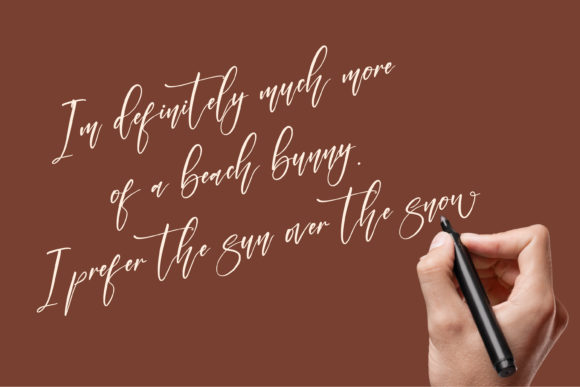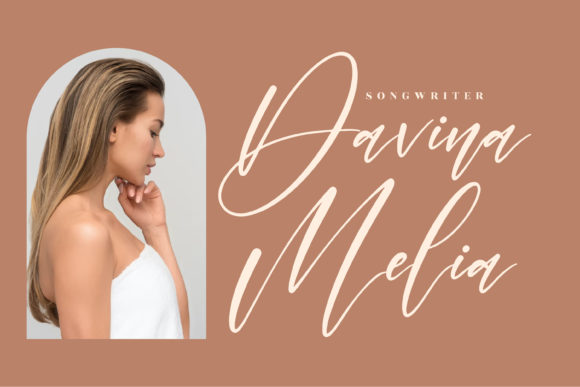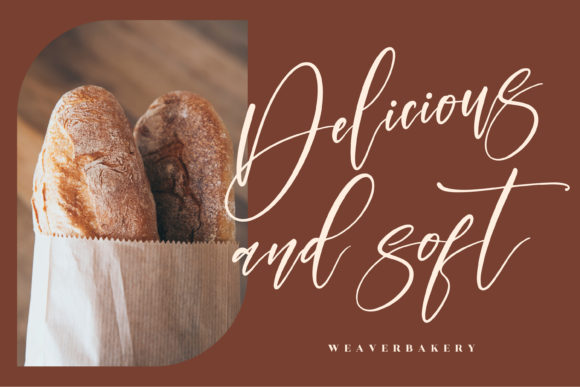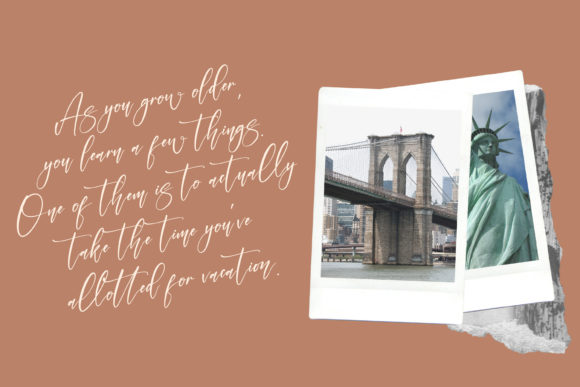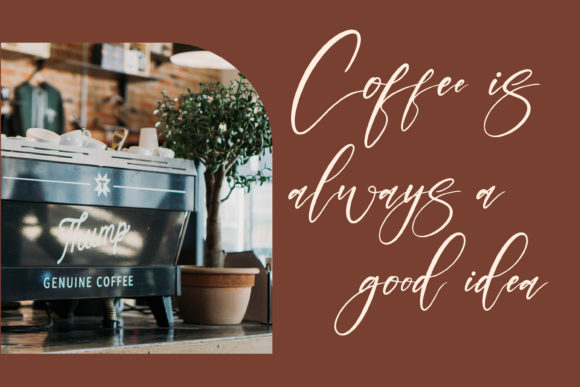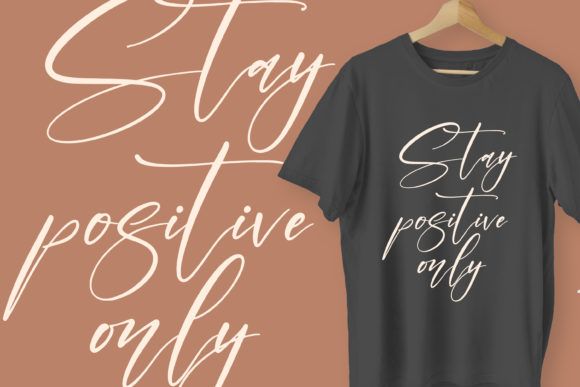
Introduction to Felisha Font
Do you remember the moment when you stumbled upon the perfect font to elevate your design project? For designers, finding that elusive combination of style and functionality can be a game-changer. It’s like stumbling upon a hidden gem that transforms your creative vision into a breathtaking reality.
One such gem is the Felisha Font, a round and flowing script font that exudes charm and sophistication. Its high quality design makes it an ideal choice for designers looking to add a touch of elegance to their projects. Whether you’re working on a website, brochure, or social media campaign, Felisha Font is a versatile design resource that’s sure to impress.
What sets Felisha Font apart is its transparent background, allowing it to seamlessly blend with any design element. This feature makes it an excellent choice for designers who want to create visually appealing and creative projects without any visual clutter.
Key Features of Felisha Font
- High-quality design: Felisha Font offers a professional and elegant appearance, making it suitable for various creative projects.
- Transparent background: This font allows for seamless integration with any background image or color, providing a clean and modern look.
- Resolution: Felisha Font is optimized for high-resolution displays, allowing for crisp and clear text rendering on modern devices.
- Unique characteristics: The font features a unique blend of modern and vintage elements, making it an ideal choice for creative projects that require a touch of sophistication.
- Size: The font family includes a range of weights and styles, from light to bold, allowing users to customize the font to suit their design needs.
Honest Review: Felisha Font
I recently had the chance to work with the Felisha Font, and I must say it’s been a delightful experience. The font’s high quality and versatility make it a fantastic addition to any creative project.
One of the standout features of the Felisha Font is its transparent background, which allows for seamless integration with any design. This makes it an excellent resource for designers looking to create professional-looking designs without the hassle of manual adjustments.
Here are some things that work well with the Felisha Font:
- High-quality design with precise typography
- Wide range of creative applications, from headings to body text
- Easy to use and customize with most design software
However, there are a few limitations to be aware of:
- ⚠️ Limited language support, which may be a concern for international projects
- ⚠️ May not be suitable for extremely large-scale designs due to file size limitations
Felisha Font
Getting the Most Out of Felisha Font
To maximize the potential of Felisha Font, consider the following tips:
- Combine Felisha Font with other high-quality design resources for a cohesive look.
- Use the font in conjunction with transparent backgrounds to create a modern and sleek design.
Felisha Font is ideal for:
- Graphic design projects.
- Presentations and reports.
- Social media graphics and advertising.
Alternatives to Felisha Font
The Great Vibes Font is a high-quality, elegant script font that works well for creative projects, especially those requiring a touch of sophistication and elegance. Its transparent background and beautiful letterforms make it a great design resource for various purposes. When to use: invitations, wedding stationery, or any project requiring a luxurious feel.
Great Vibes Font compares to Felisha Font in terms of its elegant and sophisticated feel, but it has a more refined and polished appearance.